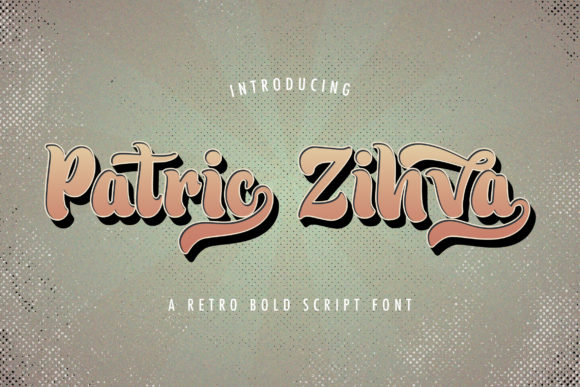
Behold, Patric Zihva, a timeless treasure that transports you to a bygone era. This vintage-inspired script, adorned with elegant swashes and exquisitely crafted glyphs, is a typographic marvel that will elevate your creative endeavors to unprecedented heights.
Journey back to the golden age of signage, where Patric Zihva would grace storefronts, posters, and advertisements, exuding a sense of nostalgia and timeless appeal. With its bold, sweeping strokes and captivating curves, this font is a symphony of visual delight, sure to leave an indelible mark on your audience.
Step into a world of endless creative possibilities with Patric Zihva. Its versatility knows no bounds, making it the perfect choice for a diverse range of projects. From crafting logos that exude vintage charm to designing watermarks that ooze sophistication, Patric Zihva is your trusted companion in the realm of brand identity.
Unleash your creativity and let Patric Zihva be your muse. Design social media posts that captivate your followers, transform ordinary quotes into works of art, and create wall art that tells a story. The possibilities are endless, and the results are nothing short of extraordinary.
Don't settle for ordinary fonts; embrace the extraordinary with Patric Zihva. Its vintage aesthetic will add a touch of timeless elegance to your designs, while its bold personality will demand attention. Prepare to stand out from the crowd and leave a lasting impression with every project you undertake.